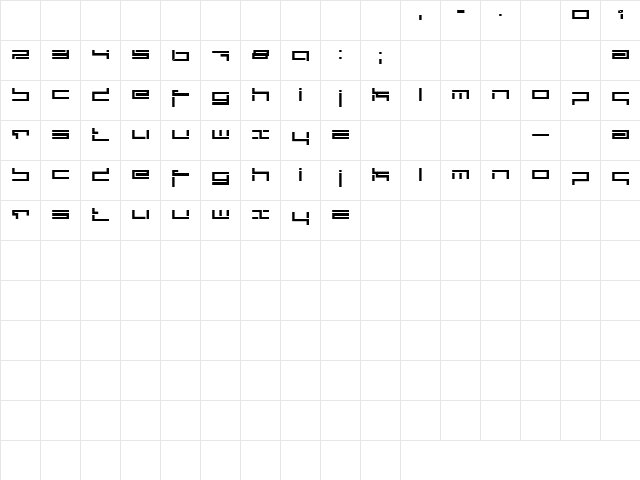
depthcore public Regular Font Preview
depthcore public Regular
depthcore public Regular Font Details
Design Context for depthcore public Typeface
depthcore public offers clean, dependable letterforms without strong stylistic allegiance, making it a practical choice for designers who need flexibility.